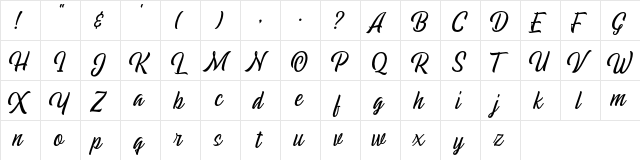
Echomotors Script Demo Regular
| Foundry | Runsell Studio |
| Designer | Edi Gunawan |
Design Context for Echomotors Script Demo Typeface
Echomotors Script Demo flows with the natural rhythm of handwritten lettering, making it ideal for designs that call for warmth and personal expression.
Font Pairing: Combine Echomotors Script Demo with a simple geometric sans for maximum contrast — the tension between flowing curves and clean structure is a classic typographic pairing.
Pro Tip: Pair Echomotors Script Demo with a clean sans-serif for supporting text. The contrast between fluid script and geometric structure creates an elegant typographic hierarchy.